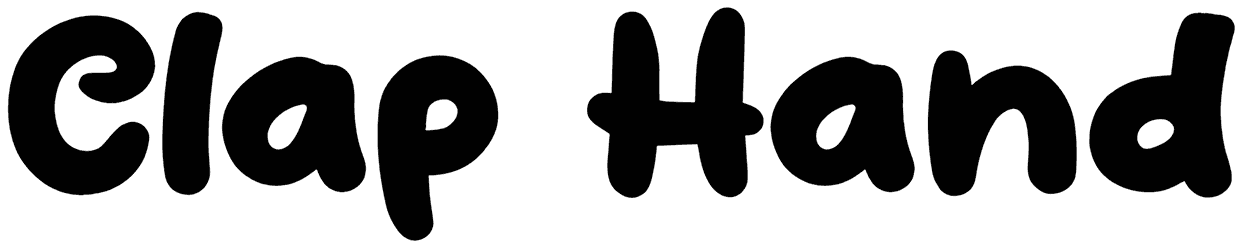
Clap Hand Font
Designed byKhurasan
The fancy letters of a cartoon font like Clap Hand would be really well applied in a huge set of graphic content like illustrations, stationaries, stickers, or branding. Due to its well-rounded characters, this lovely masterpiece is capable of reinforcing a sense of playfulness, momentum, or viability in your artwork.